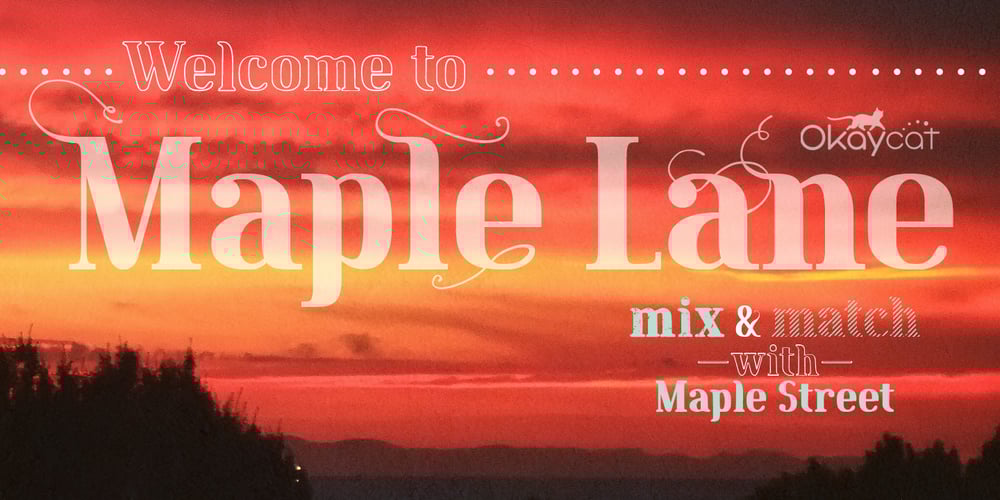
Maple Lane
Maple Lane font
Maple Lane Font Family was designed by Luke William Turvey, Natsuko Hayashida and published by Okaycat. Maple Lane contains 2 styles and family package options. Maple Lane is a refined traditional serif font composed by the Okaycat design team, Natsuko Hayashida & Luke Turvey, in 2014. Bold letterforms contrast with fine seriffed detail at Maple Lane to offer style excellence with fancy embellishment options. This nicely balanced serif is designed to mix and match with the more relaxed and casual version of Maple Lane, Maple Street .